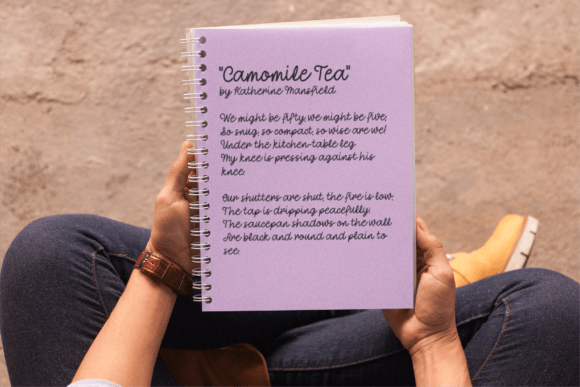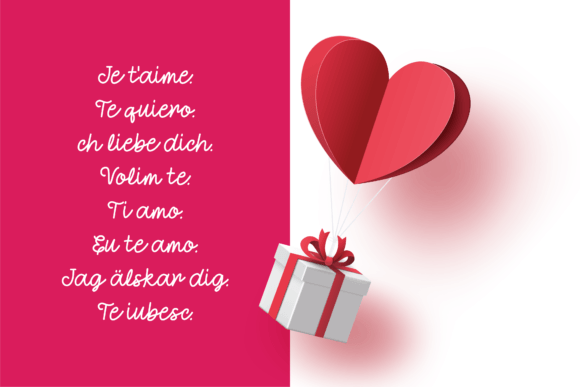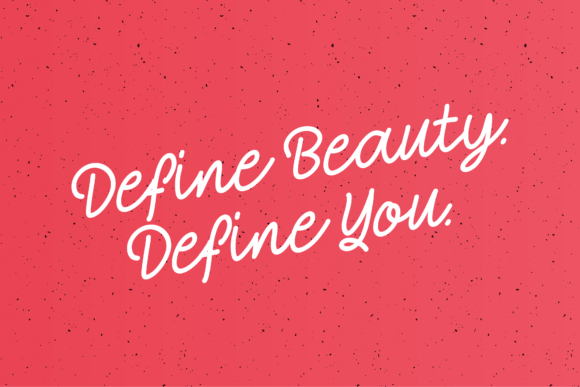
Valentine's Day Font
Valentine’s Day Font
Valentine’s Day is a sweet and curly handwritten script font that was carefully crafted to enhance a variety of projects. This font can be used to write titles, invitations, letters, and many other types of products.